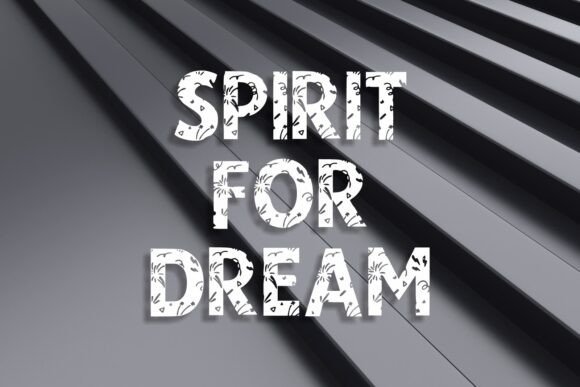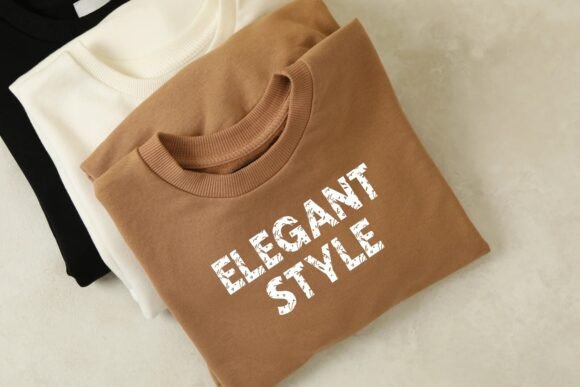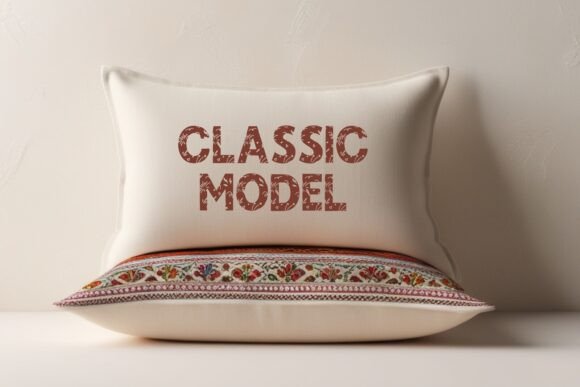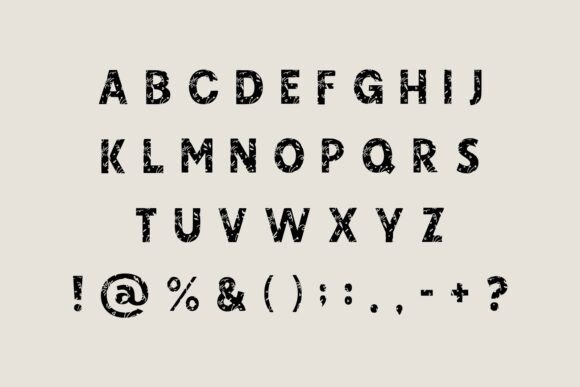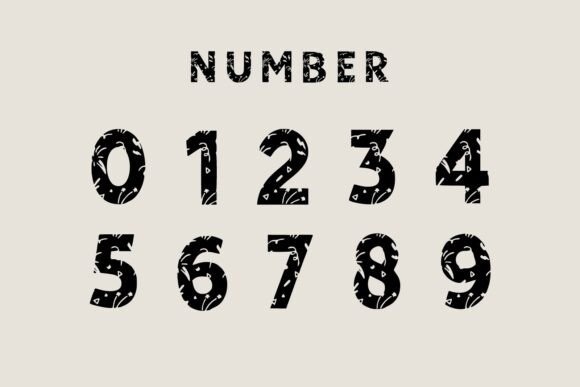
The Magic of Festive Magic Font: A Designer’s Delight
I’ll never forget the time I was working on a New Year’s Eve invitation project, and my client asked for a font that would ‘make the invitation pop.’ I scoured the internet, tried countless fonts, but nothing seemed quite right. That was until I stumbled upon Festive Magic Font. This bold, party-inspired display font has been a game-changer for me ever since. Bursting with confetti, sparkles, and celebration vibes, Festive Magic is perfect for holiday cards, party invitations, and anything that needs a joyful, high-energy touch.
An Honest Review of Festive Magic Font
- ✨ **Dynamic Style**: Festive Magic instantly adds a pop of fun and festivity to any design project.
- ✅ **Decorative Fireworks**: The font’s unique decorative elements, such as fireworks and confetti, make it perfect for celebratory designs.
- 🎉 **High-Energy Touch**: The font’s bold and playful style is sure to grab attention and leave a lasting impression.
While Festive Magic Font is a fantastic addition to any design project, there are a few things to keep in mind. 🤔 For example, due to its bold and decorative nature, it may not be the best choice for body text or small font sizes. ⚠️ Additionally, some of the font’s more intricate details may not render well at very small sizes.
The Backstory of Festive Magic Font
Festive Magic Font was designed by a team of creatives who wanted to capture the essence of celebration and joy. Inspired by the magic of fireworks, confetti, and other festive elements, they created a font that would bring a touch of excitement to any design project. The font’s unique decorative elements and dynamic style make it perfect for adding a pop of fun and festivity to your designs.
Q: What type of designs is Festive Magic Font best suited for?
A: Festive Magic Font is perfect for holiday cards, New Year’s graphics, party invitations, and anything that needs a joyful, high-energy touch.